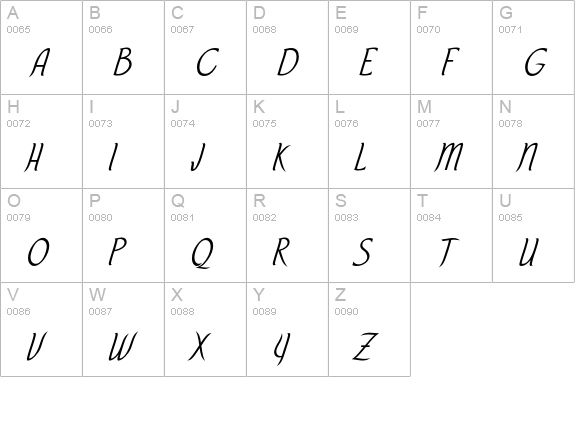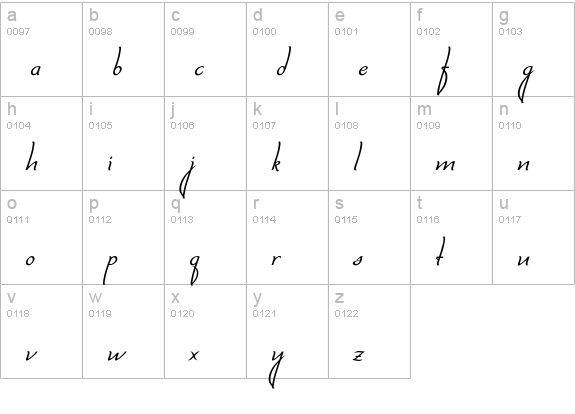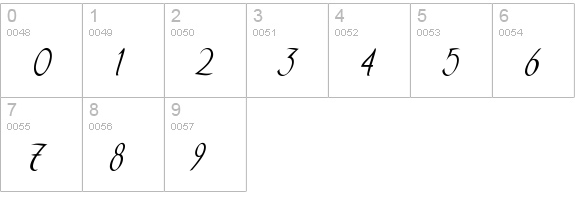
TiloEF Font Details
Introducing TiloEF font, a captivating typeface that combines elegance and modernity in perfect harmony. With its clean lines, balanced proportions, and delicate curves, TiloEF effortlessly captures attention and adds a touch of sophistication to any design project. This versatile font is suitable for a wide range of applications, from branding and logo design to editorial layouts and web design. Its carefully crafted letterforms exude professionalism and refinement, making it an ideal choice for corporate materials, presentations, and marketing collateral. TiloEF font offers a vast array of character styles, including a full set of uppercase and lowercase letters, numerals, punctuation marks, and special symbols. Its extensive language support ensures that you can effortlessly communicate your message in various languages and reach a global audience. What sets TiloEF font apart is not only its exceptional design but also its accessibility. This remarkable font is available for free download exclusively at FontsMarket.com. Yes, you read that right – TiloEF is freely available to enhance your creative projects without any cost. Now you can elevate your designs with this remarkable font, all while staying within budget. Whether you are a professional designer or a creative enthusiast, TiloEF font empowers you to bring your ideas to life with style and finesse. Its timeless aesthetic and effortless legibility make it a reliable choice for both print and digital media. So why wait? Download TiloEF font today from FontsMarket.com and unlock the potential of captivating typography in your next project.